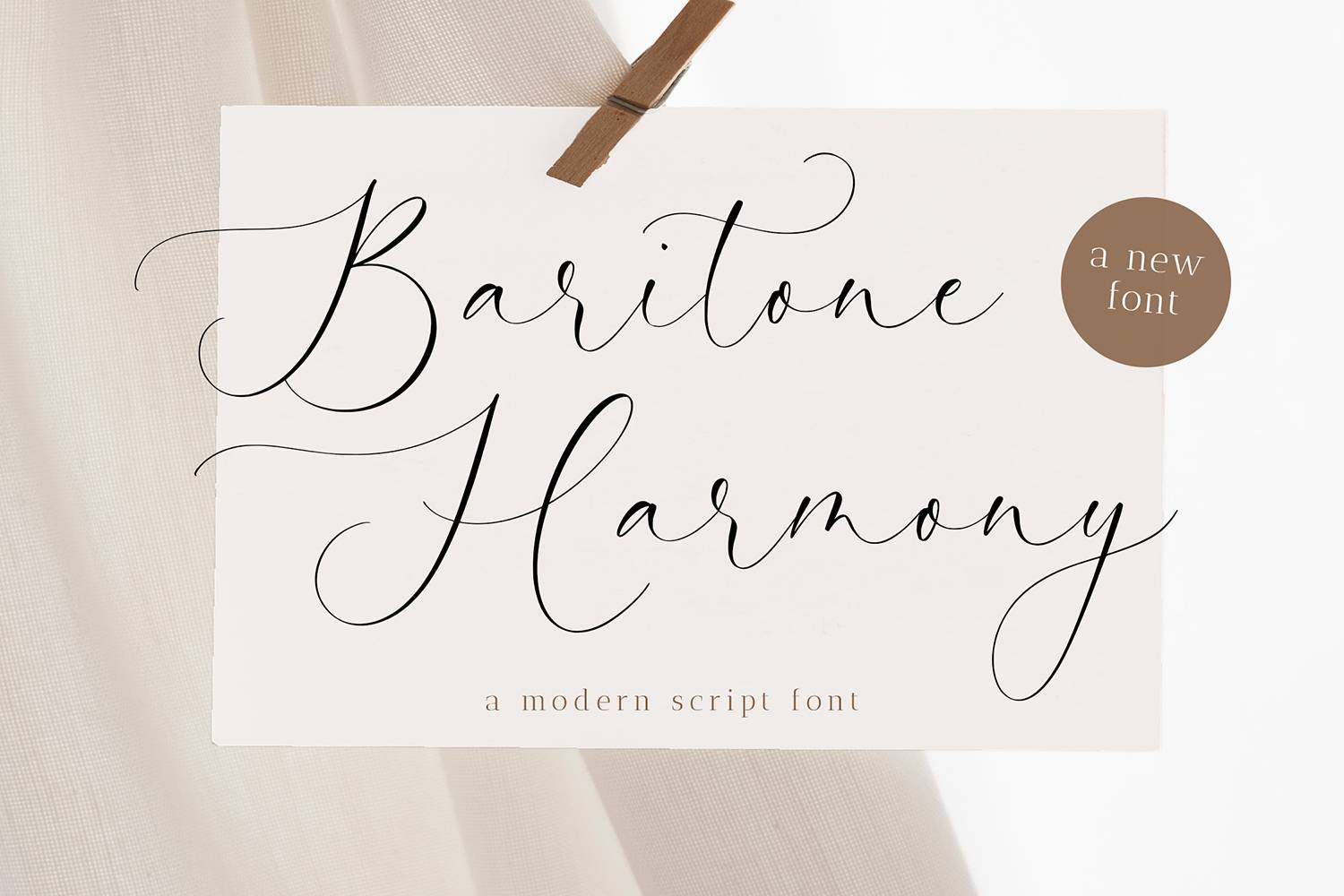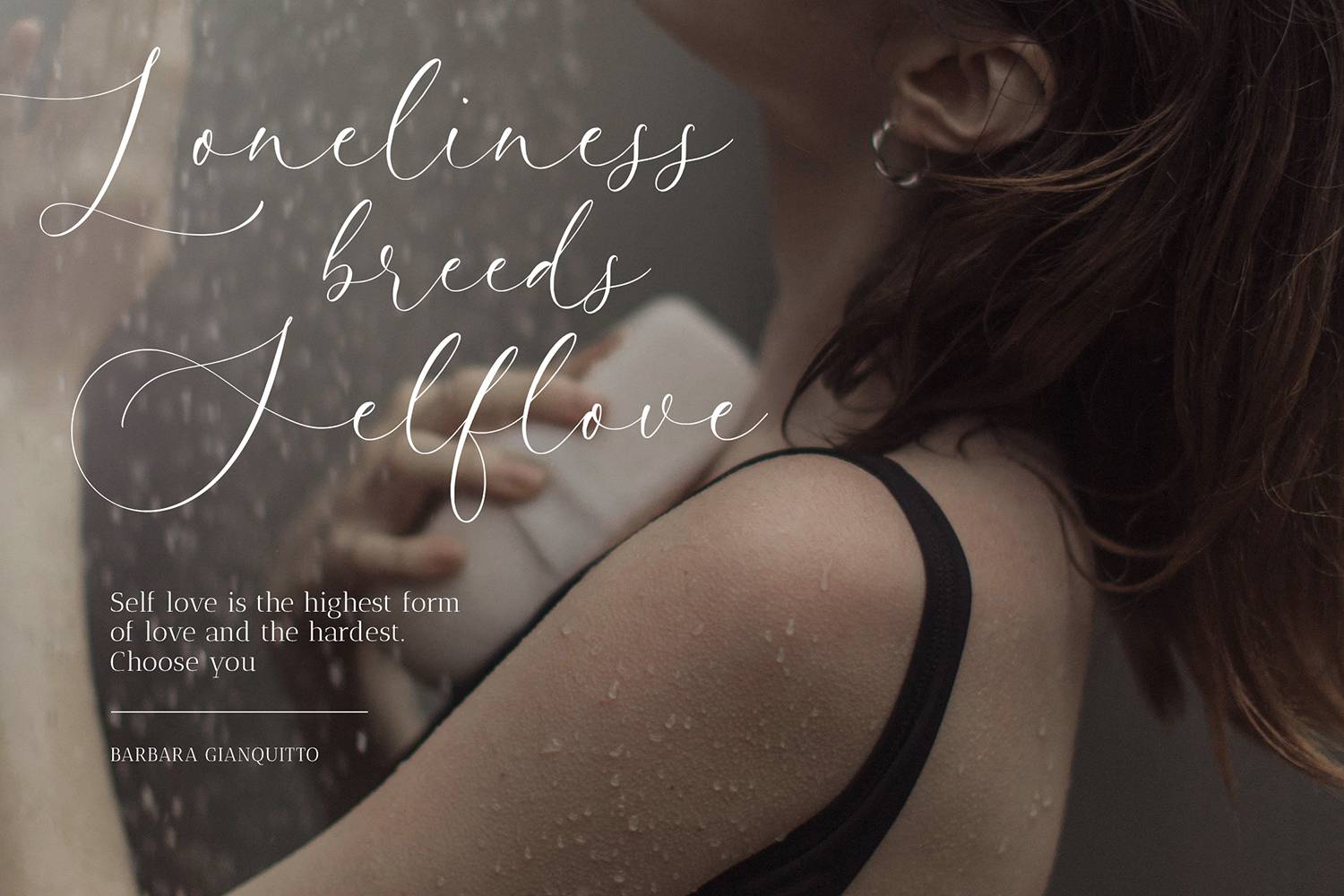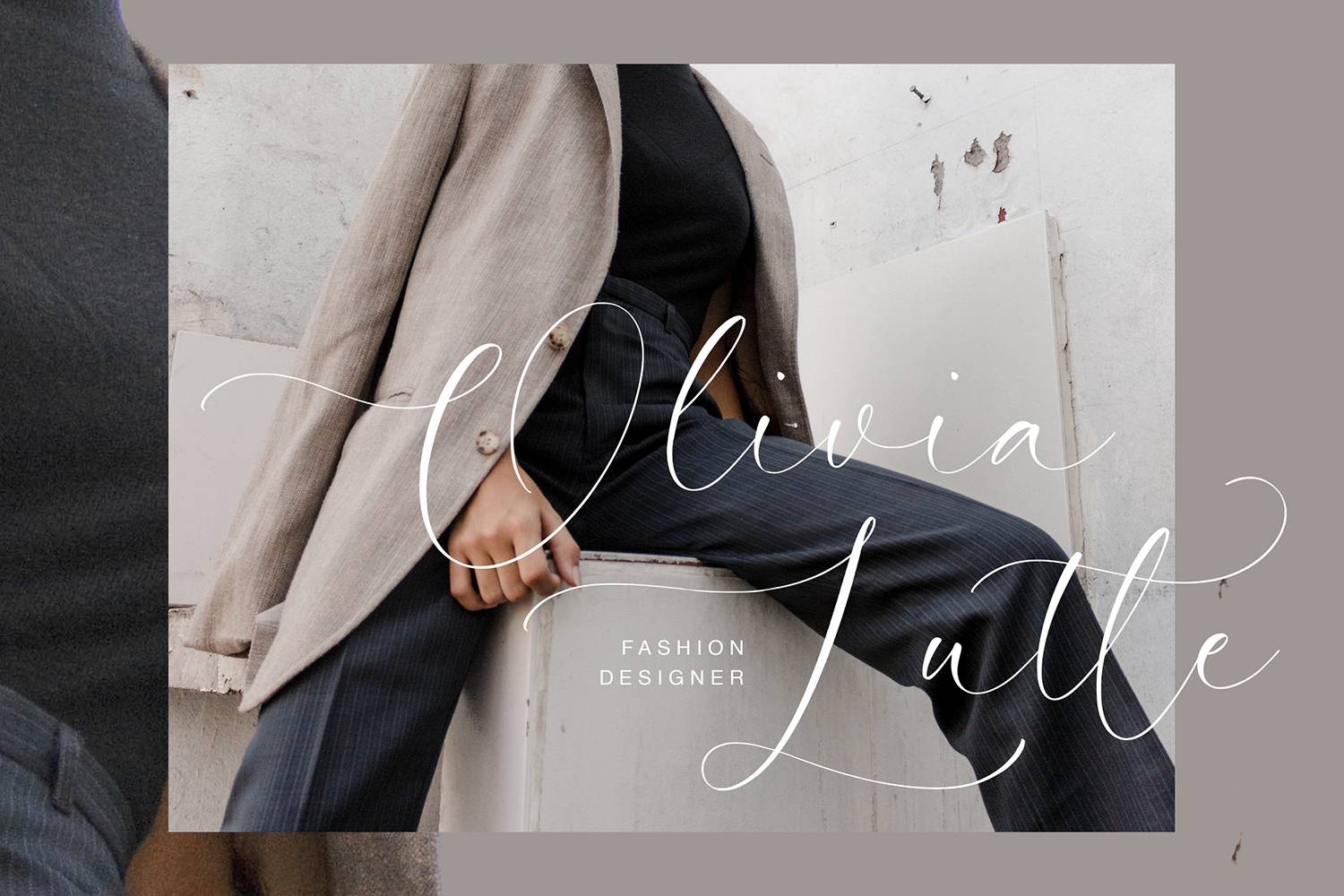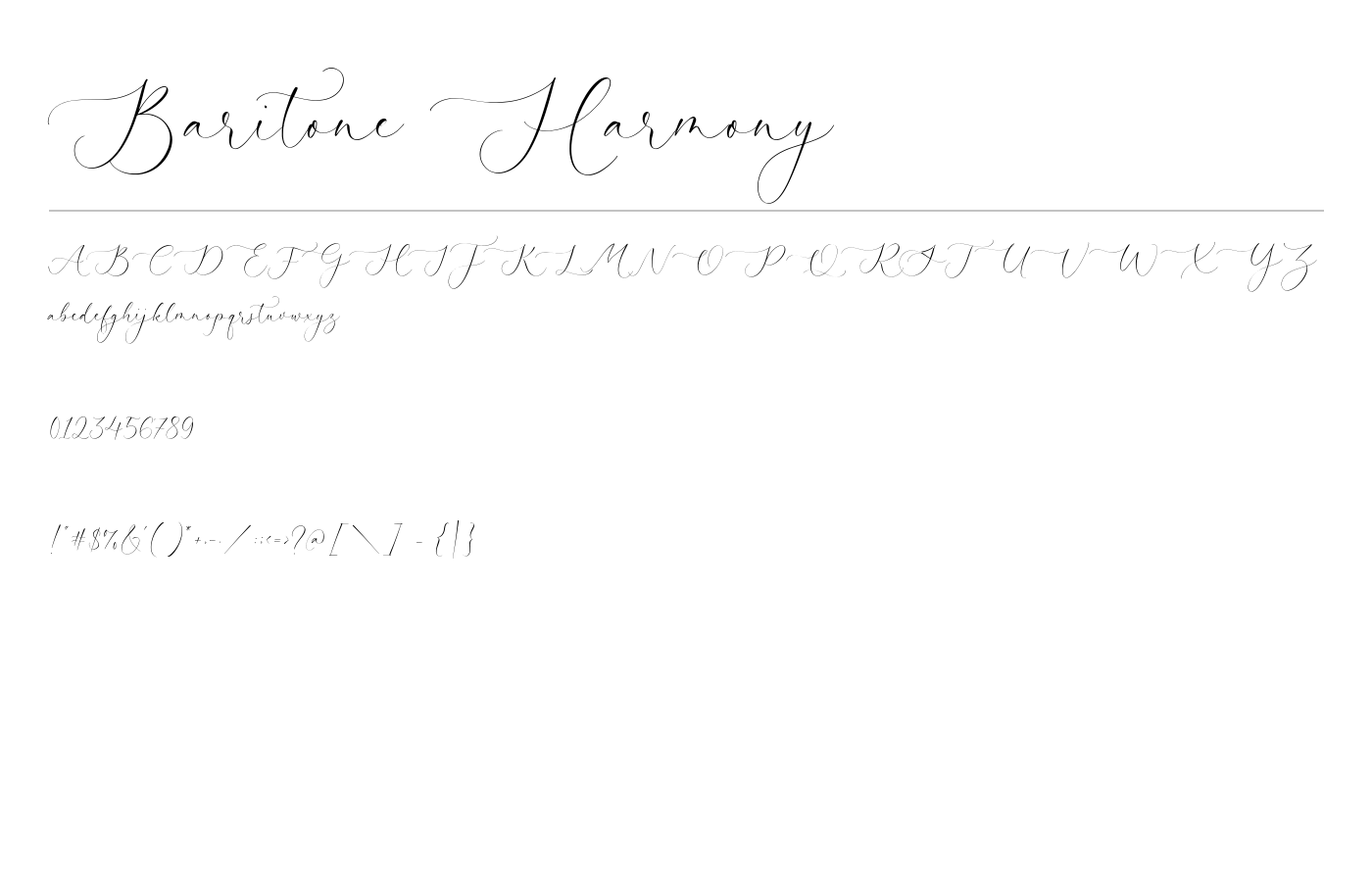
Baritone Harmony is an elegant, delicate script font characterized by its fine, flowing lines and graceful swashes. Its thin strokes and airy, calligraphic style make it ideal for sophisticated designs like wedding invitations, luxury branding, and high-end editorial projects where a refined and romantic touch is needed. This font shines in large sizes and headline use, adding a stylish and personal flair to any creative work.
Baritone Harmony Font
About Baritone Harmony Font